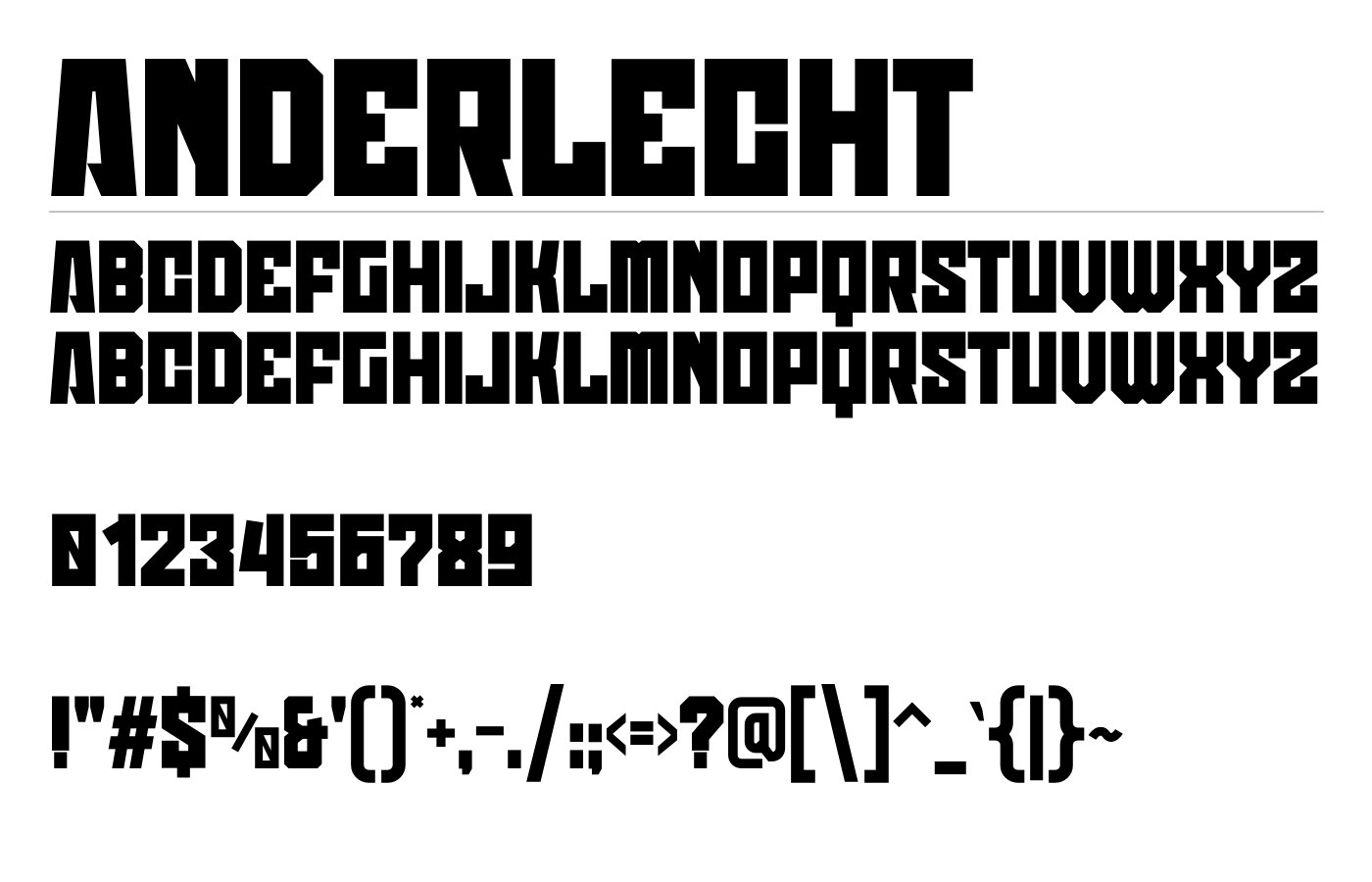
Anderlecht is a bold, condensed sans serif font with a strong, geometric feel and high stroke contrast that gives it a powerful, modern presence. Its all-caps design, sharp edges, and solid shapes make it ideal for headlines, logos, and branding that aim to convey strength and confidence. This font works well in sports, urban, or tech-related designs where a bold statement is needed.
Anderlecht Font
About Anderlecht Font
| Font family | Anderlecht Font |
| Designer | Muhammad Afif Ersya |
| Trademark | Trequartista Studio |